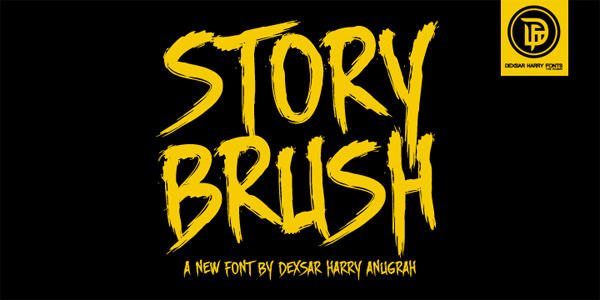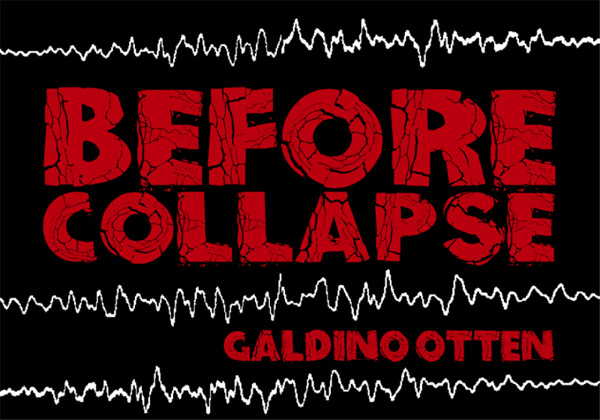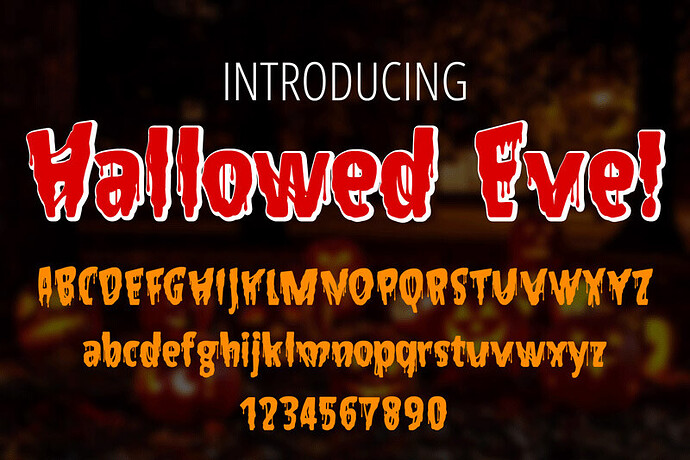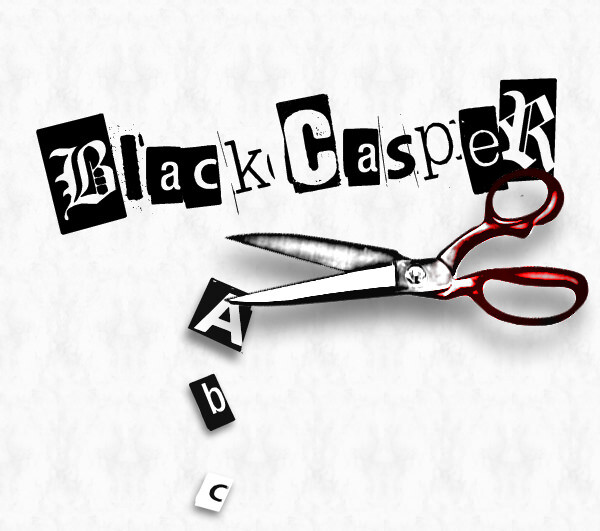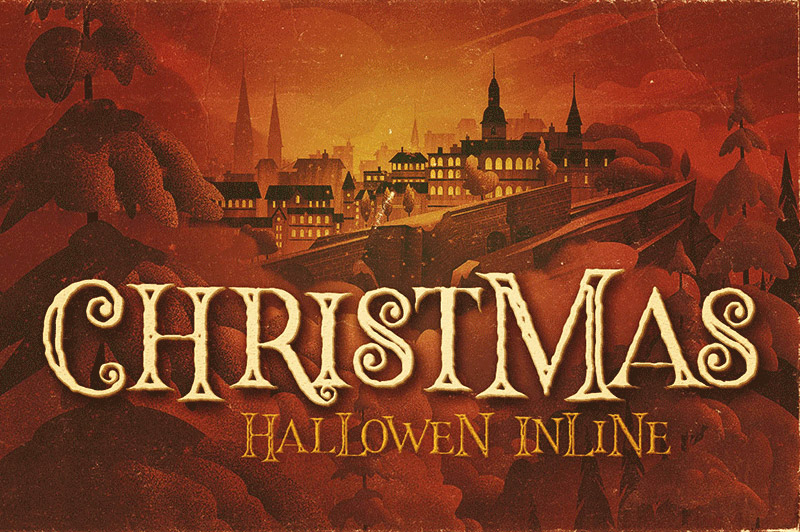
Halloween is just around the corner bringing with it all its fervor. While people are preparing for the Halloween parties, designers are looking for elements to spook up their designs.
So, either you are looking to create a scary Halloween party invitation or want to create some Halloween-inspired artwork, here is a list of 20 best and free spooky fonts for Halloween. Just download any of these fonts and use it in your creepy chilling designs. (Source: Hongkiat)
#1 β Hacjiuza @KeepWaiting
#2 β Scary Halloween @Phelan Riessen
#3 β El&Font Destroy @Jerome Delage
#4 β Face Your Fears @David Kerkhoff
#5 β YouMurderer @Blambot Comic Fonts
#6 β Oh No @Jonathan S. Harris
#7 β Buffied @GemFonts
#8 β Ghoulish @Sinister Fonts
#9 β CF My Bloody Valentine @CloutierFontes
10 β Feast of Flesh @Blambot Comic Fonts
#11 β Damaged Serif @Galdino Otten
12 β Frankentype @Mans Greback
#13 β Nightbird @David Kerkhoff
#14 β CSNPWDT NFI @Thomas W.Otto
#15 β Broken Detroit @Hypefonts
#16 β DHF Story Brush @Dexsar Harry Anugrah
#17 β Before Collapse @Galdino Otten
#18 β Hallowed Eve @Phelan Riessen
#19 β Hallowen @Peter Olexa
#20 β BlackCasper @asianpride7625